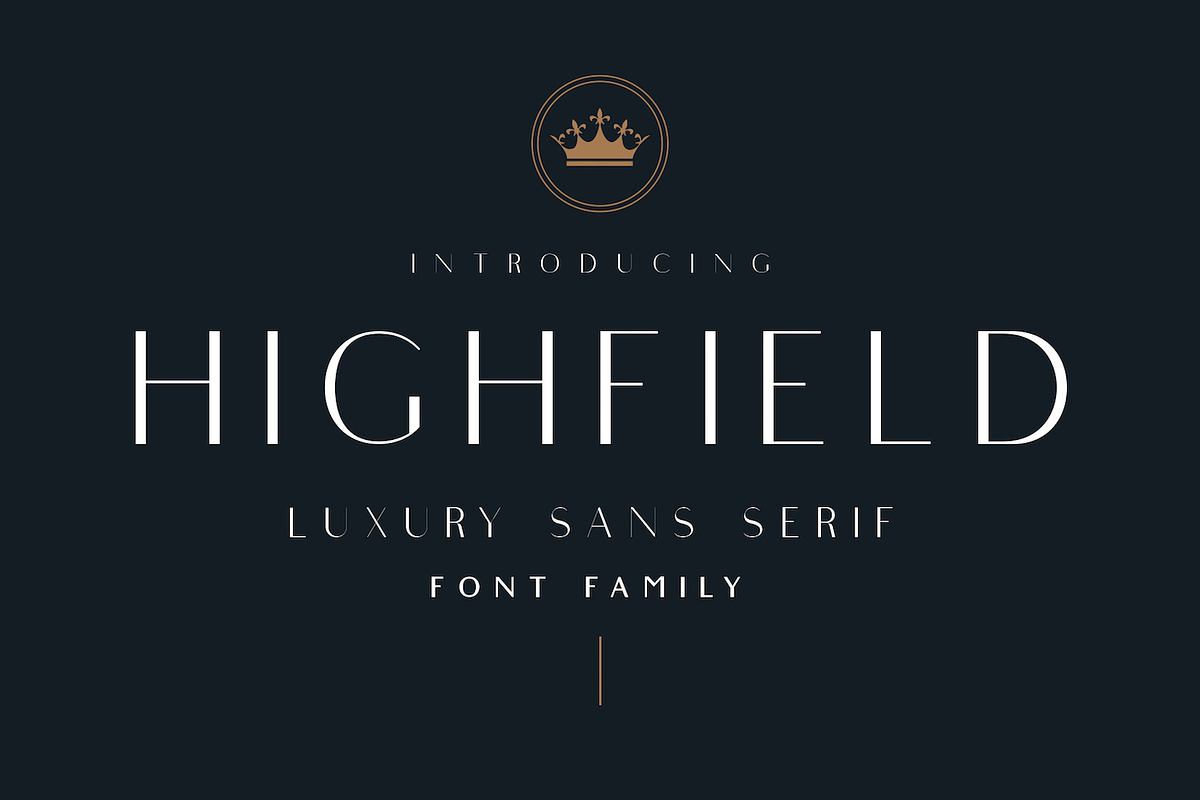
The Highfield - Luxury Sans Font Family Free Download is an elegant and sophisticated typeface family designed to add a refined, modern touch to your designs. With a clean, minimalist aesthetic, this font family is perfect for creating high-end branding, luxury logos, editorial layouts, and upscale websites. The versatile weights and styles within the Highfield family provide flexibility, allowing you to create a cohesive look across a variety of projects. Whether you’re designing for luxury products, professional business materials, or digital media, this font will elevate your typography with a polished, contemporary style. Please note, for commercial use, a license purchase is required. However, you can easily download the Highfield - Luxury Sans Font Family Free Download for free for personal use and explore its elegance in your designs. Download the Highfield - Luxury Sans Font Family Free Download today and bring a touch of luxury to your typography.